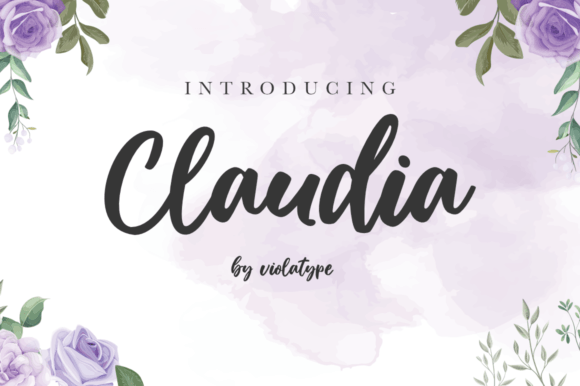
Immerse yourself in the enchanting world of Claudia Font, a remarkable script font brimming with elegance, finesse, and timeless beauty. Embark on a creative journey where your designs dance with grace and sophistication, touched by the delicate hand of Claudia's artistry.
With Claudia Font, you hold the key to unlocking a treasure trove of creative possibilities. Its graceful curves and sweeping strokes evoke a sense of romance and nostalgia, making it the perfect choice for wedding invitations, greeting cards, and heartfelt letters. Let your words flow with eloquence and charm, leaving an unforgettable mark on the hearts of your loved ones.
Step into the realm of fashion and apparel, where Claudia Font reigns supreme. Its unique style adds a touch of sophistication to t-shirts, clothing labels, and marketing materials. Whether you're a seasoned designer or just starting your creative adventure, Claudia Font will elevate your designs to new heights, leaving a lasting impression on your audience.
Journey into the world of publishing and let Claudia Font grace the pages of your magazines, brochures, and other printed materials. Its refined aesthetics lend an air of authority and credibility to your content, capturing the attention of readers and inviting them to delve deeper into your stories. Claudia Font is the perfect companion for creating professional and impactful publications that leave a lasting impression.
With Claudia Font, the possibilities are endless. Its versatility knows no bounds, adapting seamlessly to a myriad of creative endeavors. Unleash your imagination and explore new horizons, letting Claudia Font guide you towards innovative and captivating designs.